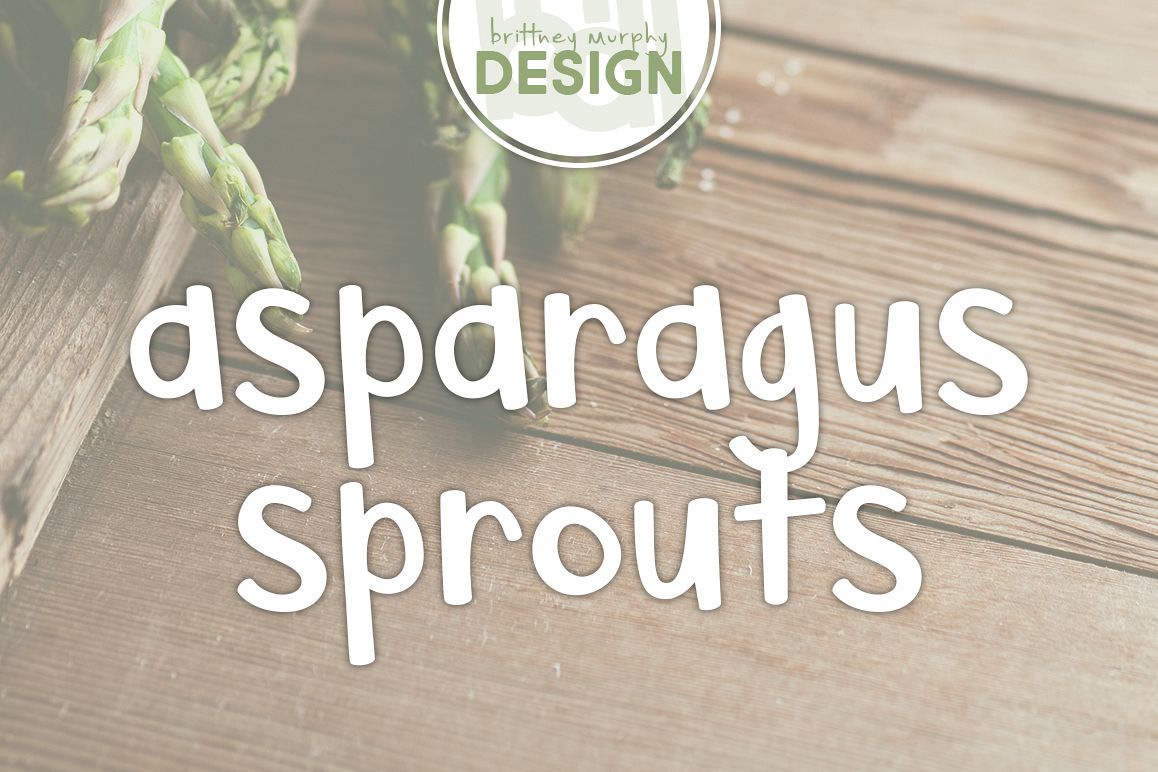
Asparagus Sprouts
Asparagus Sprouts is a playful font with varying stroke weight to give it lots of character!The font has 356 characters, including lots of accented letters.